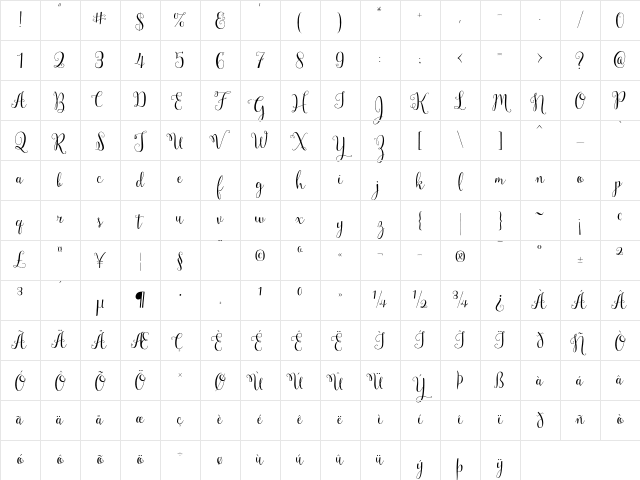
Mulberry Script Regular
Foundry: Cultivated Mind
Designer: Cindy Kinash
Design Context for Mulberry Script
Mulberry Script flows with the natural rhythm of handwritten lettering, making it ideal for designs that call for warmth and personal expression.
Font Pairing: Combine Mulberry Script with a simple geometric sans for maximum contrast - the tension between flowing curves and clean structure is a classic typographic pairing.
Pro Tip: Use Mulberry Script for short runs of text - names, titles, or taglines. Extended body copy in script faces tires the eye quickly.